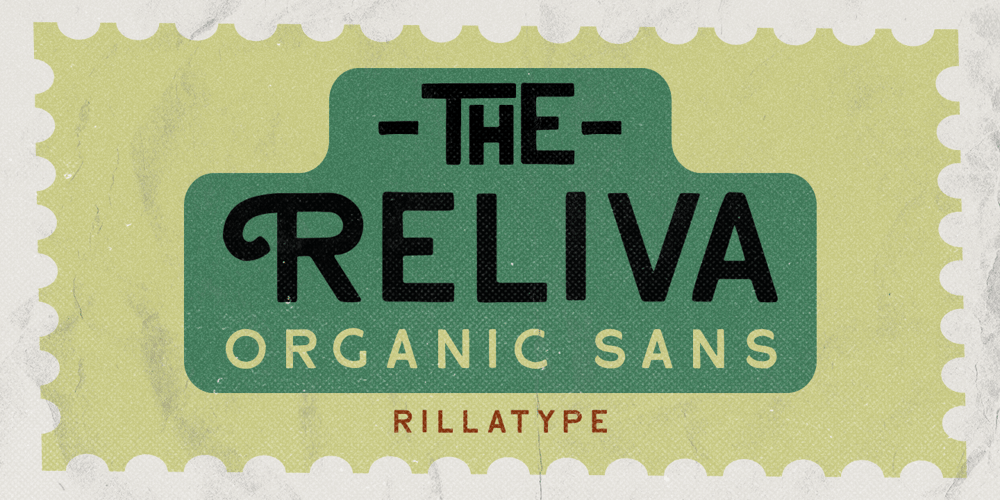
Reliva Sans Font Family was designed by Gustian Agung Asprilla and published by Rillatype. Reliva Sans contains 2 styles and family package options. Reliva Organic Sans is a typeface that comes with many alternates and ligatures to make this font unique.Reliva is just the perfect font to make logotype, branding, packaging, and quotes.